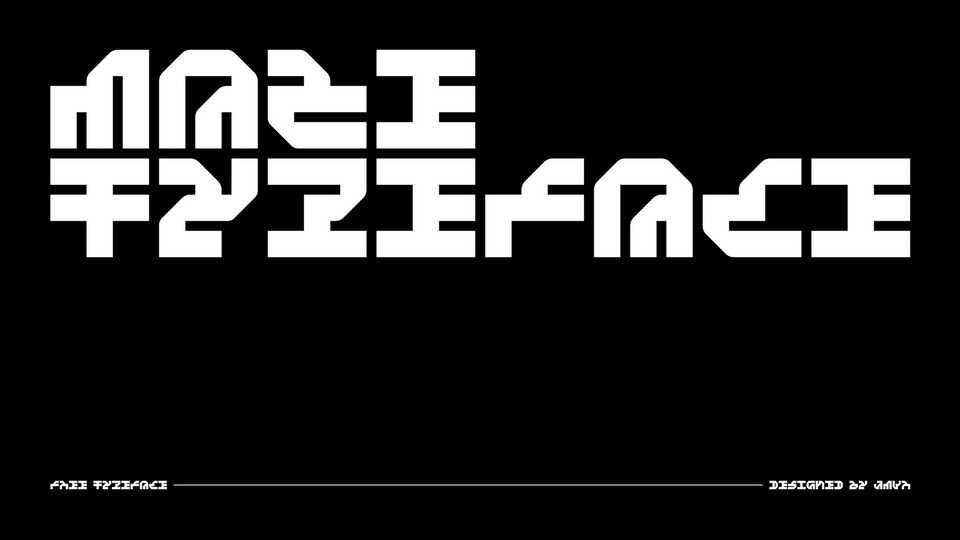
Download Maze font, a unique display typeface inspired by the work of Jurriaan Schrofer. Maze consists of letterforms designed in very strict geometrical parameters.